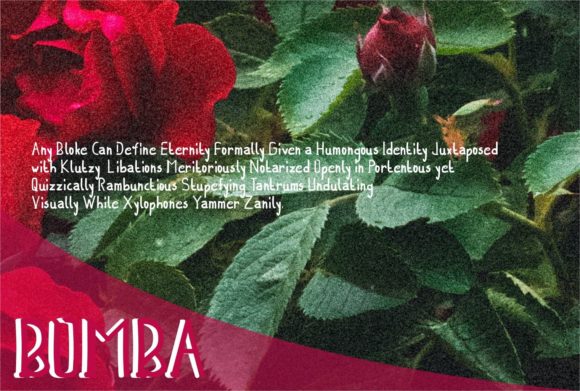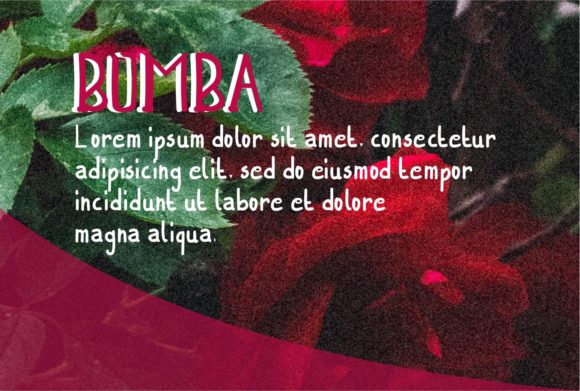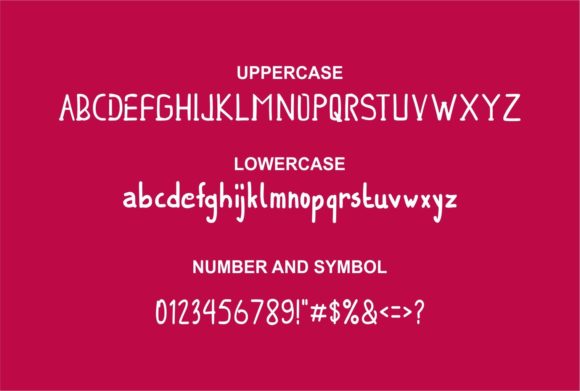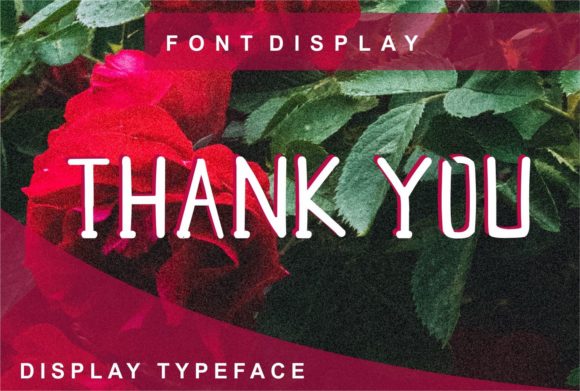
Bomba Font: Elevate Your Designs with a Clean and Adaptable Display Font
In the world of typography, a font can make or break a design. It’s the foundation upon which the entire visual identity is built. For designers and crafters, finding the perfect font that can adapt to various topics and styles is a treasure. That’s where Bomba Font comes in – a clean and adaptable display font that’s about to become your new best friend.
The Versatility of Bomba Font
Bomba is a clean and adaptable display font designed to enhance any creation. Its versatility is unmatched, making it an excellent addition to your font library. Whether you’re working on a branding project, a website, or a marketing campaign, Bomba Font can be used in a variety of contexts. Its clean lines and modern aesthetic ensure that it can seamlessly integrate with any design style, from minimalist to bold and edgy.
Key Features of Bomba Font
- Clean and Adaptable: Bomba Font boasts a clean and adaptable design, making it perfect for a wide range of applications.
- Display Font: Designed specifically as a display font, Bomba is optimized for headlines, titles, and short text passages.
- Easy to Read: The font’s clear and legible design ensures that your message is conveyed effectively, even at smaller sizes.
- Highly Versatile: Bomba Font can be used in various design contexts, from digital to print.
Benefits of Using Bomba Font
So, why should you choose Bomba Font for your next design project? Here are just a few benefits:
- Save Time: With Bomba Font, you can quickly create stunning designs without spending hours searching for the perfect font.
- Enhance Your Brand: Bomba’s modern and clean aesthetic can help elevate your brand’s visual identity and make it more recognizable.
- Increase Legibility: The font’s clear design ensures that your message is conveyed effectively, reducing the risk of miscommunication.
- Boost Creativity: With Bomba Font, you can experiment with different styles and effects, unlocking new creative possibilities.
How to Use Bomba Font Effectively
To get the most out of Bomba Font, here are some tips:
- Pair it with Other Fonts: Combine Bomba Font with complementary fonts to create visual interest and hierarchy.
- Experiment with Colors: Try out different color schemes to find the perfect match for your design.
- Play with Sizes: Use Bomba Font in various sizes to create visual emphasis and draw attention to key elements.
| Font Name | Bomba Font |